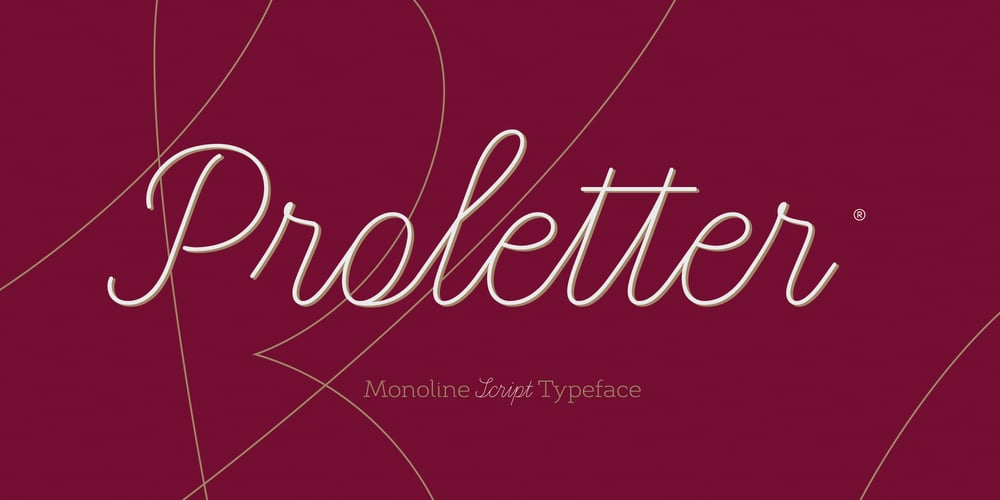
Proletter Font Family was designed by Lazar Dimitrijević and published by Posterizer KG. Proletter contains 1 styles and family package options. Our initial idea was to create a font modeled on a simplified school alphabet, written with a ballpoint or rounded nib. Compared to classic school letters, the capitals are slightly lower, so that the line spacing in the text could be smaller. So, Proletter is light, sophisticated and elegant script typefaces based on classical and simplified monoline cursive. Taking advantage of Opentype functions, it’s possible to choose different letterforms, by activating Ligatures, Contextual and Stylistic Alternates. The character set supports Western and Central European languages, completely MacOS Roman and MacOS Cyrillic code pages.We did not make Proletter typeface in more than one weight, but if you want, you can add an outline, and that way make the text bolder. In any case, it is hard to make a mistake with monoline fonts. Relax and enjoy your work!